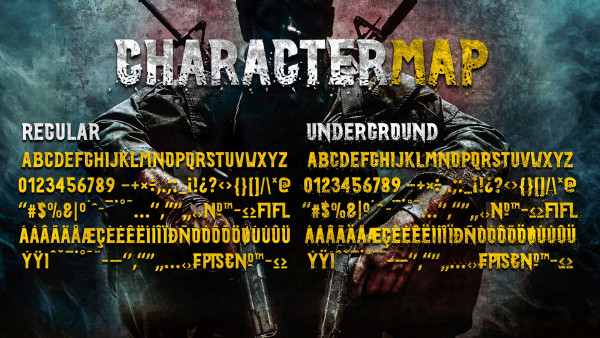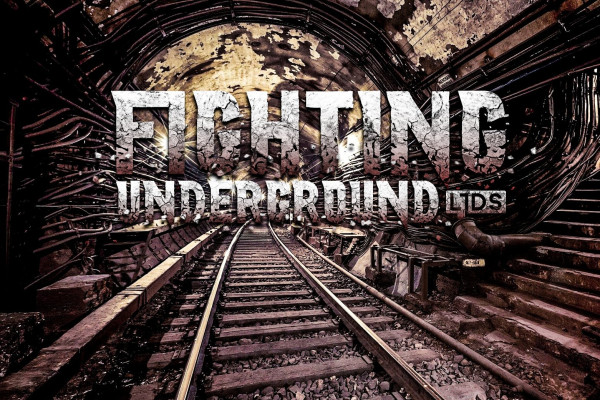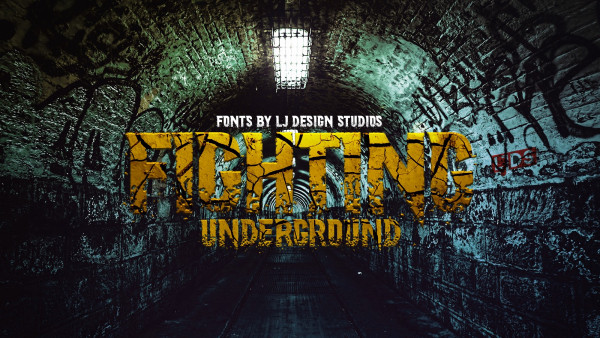
Fighting Font
Fighting Font, is an earth wear inspired typeface style. Its form is somewhat aggressive and free with two typographic families. It’s ideal for creating logos, titles, and part of artwork, and perfect for adding effects like textures, embossing, bevels, and other effect styles.